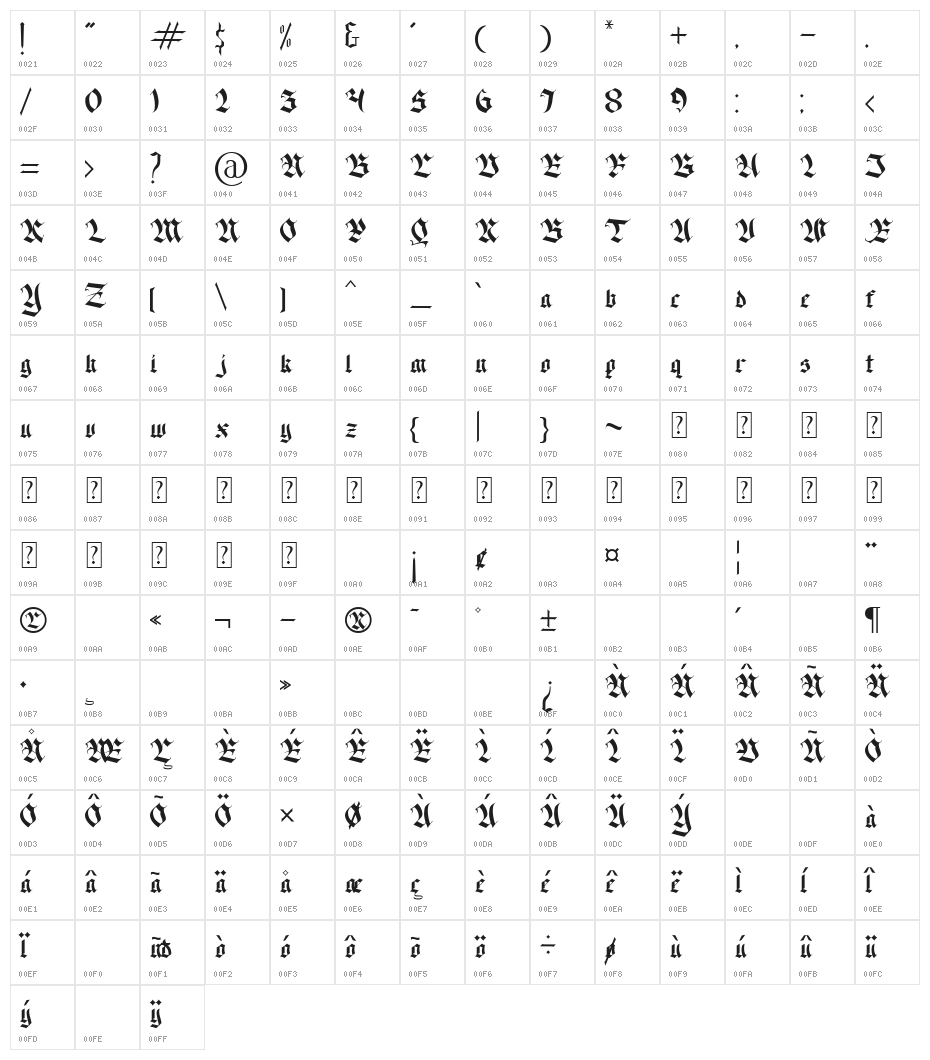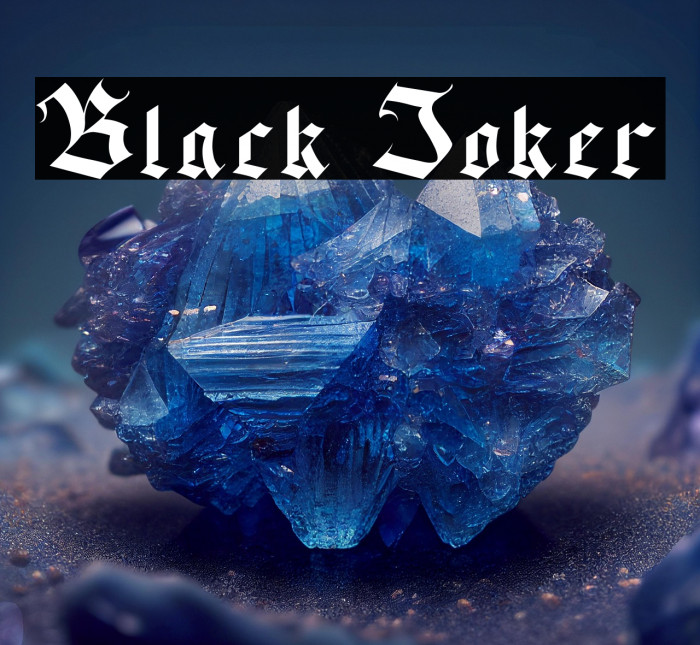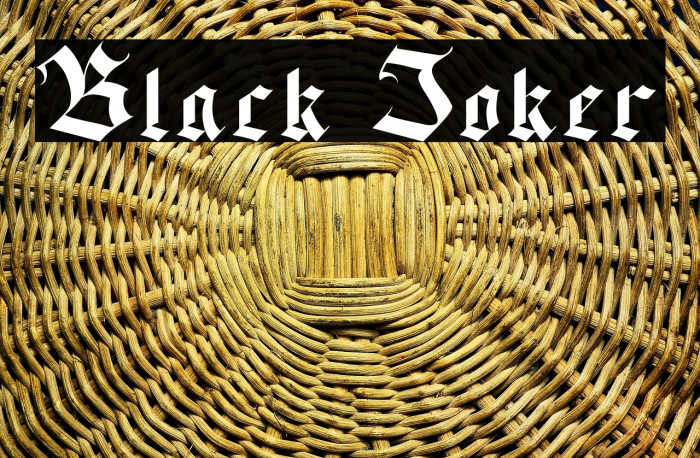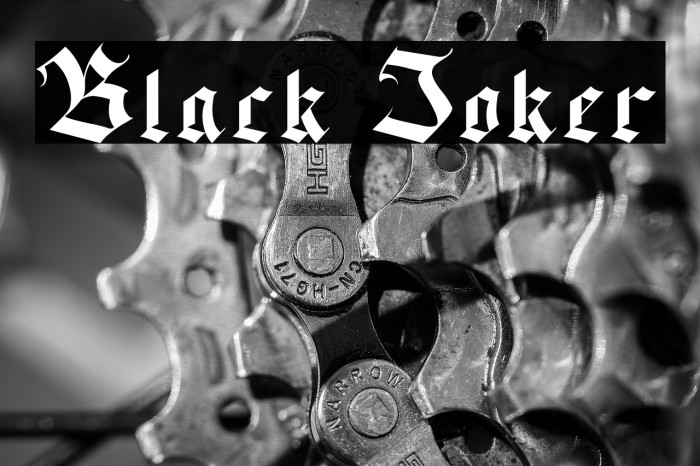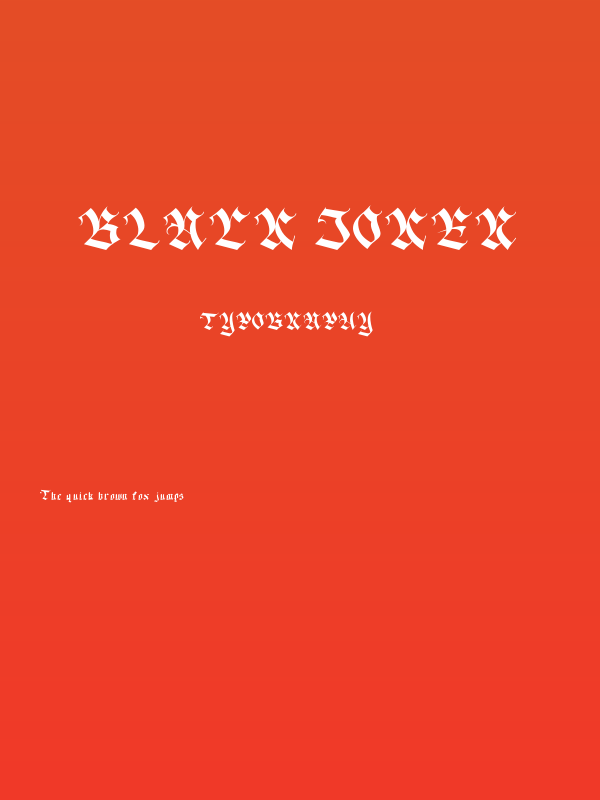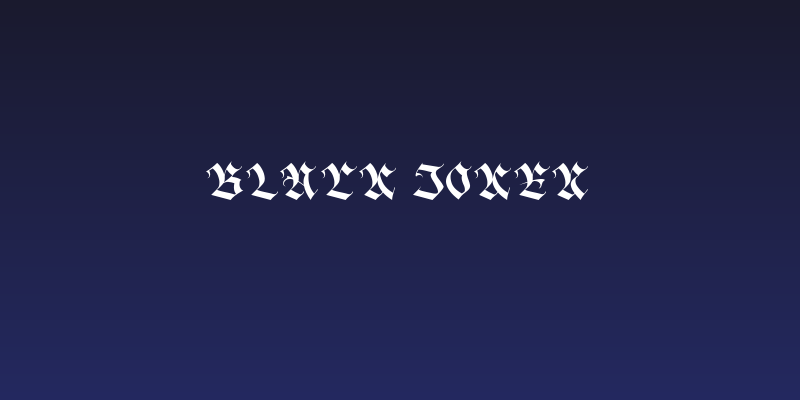
Black Joker Font
Black Joker Description
This font exhibits a bold and dramatic style, characterized by its sharp, angular lines and intricate detailing reminiscent of traditional Gothic script. The uppercase and lowercase letters maintain a consistent design, with pointed edges and a strong vertical emphasis. The numerals and special characters follow the same aesthetic, adding to the cohesive look. The overall appearance is striking and ornate, making it suitable for projects that require a touch of elegance and historical flair.
Overall StyleVintage
Use CaseLogos, Headlines, Decorative text
Proposed ProjectsIdeal for use in branding, posters, book covers, and any design requiring a dramatic, historical touch.